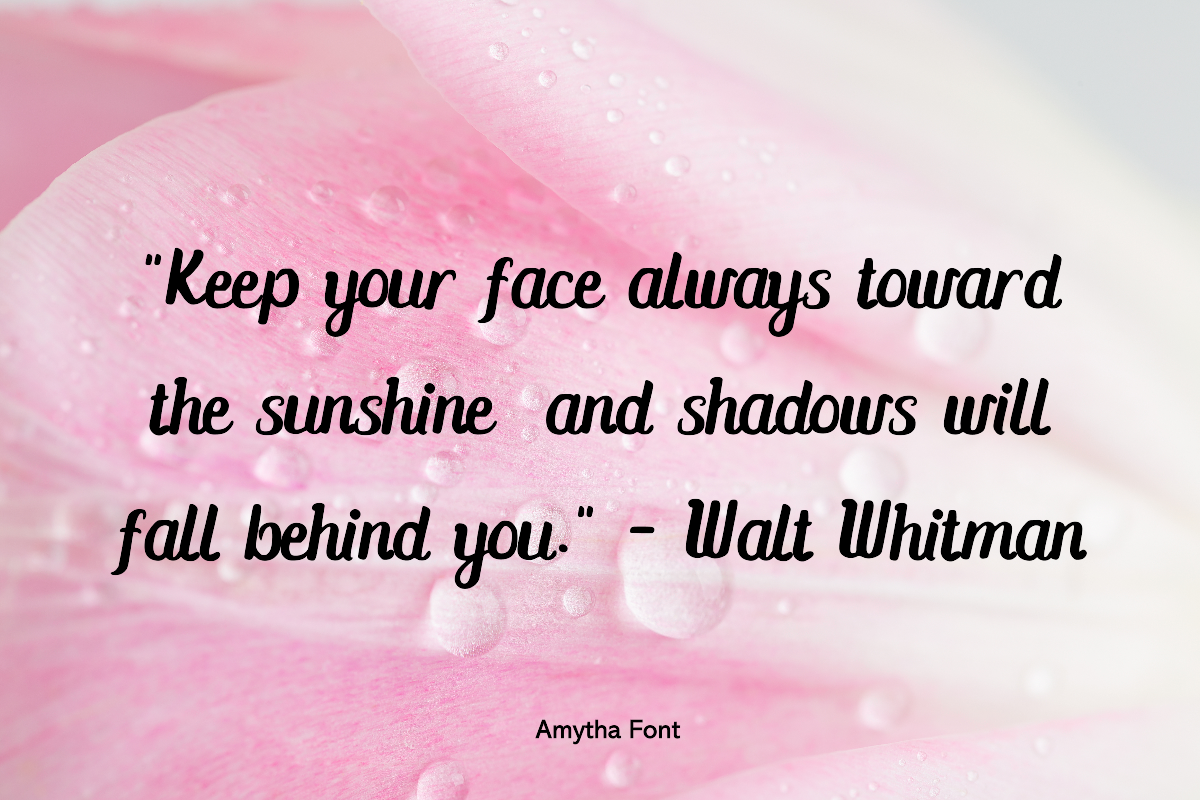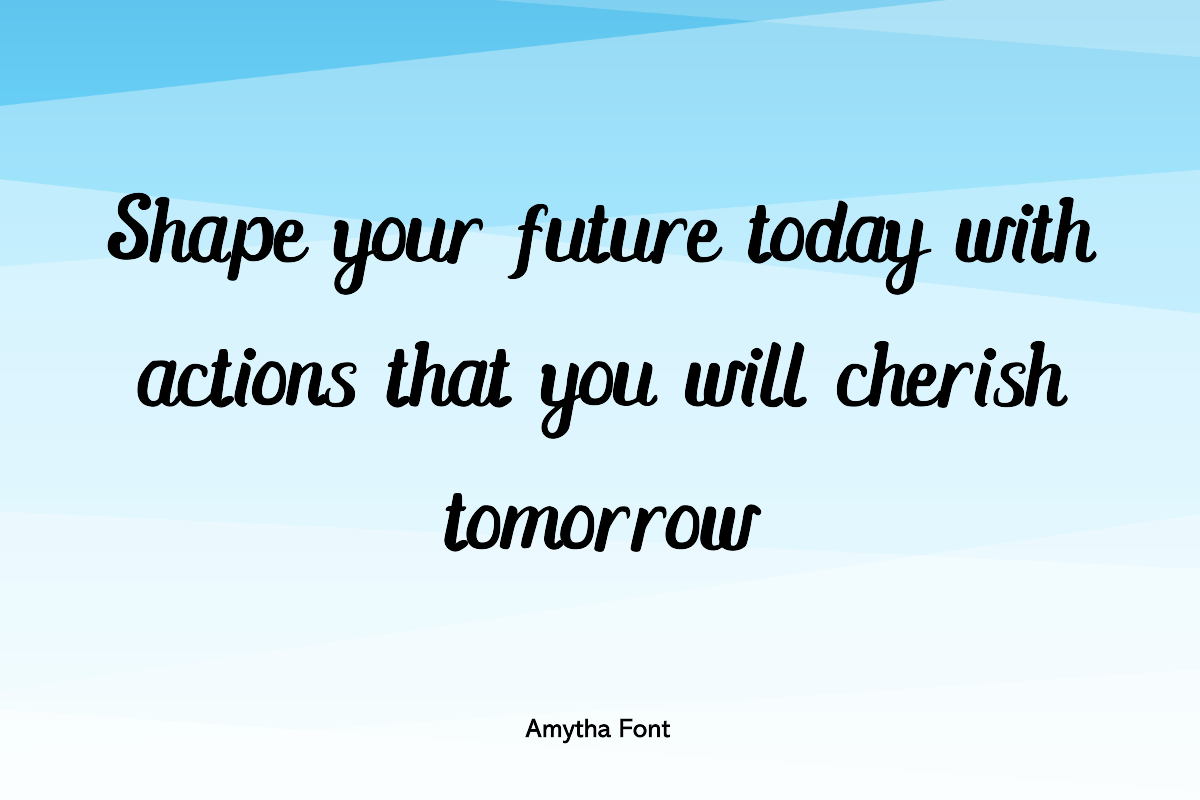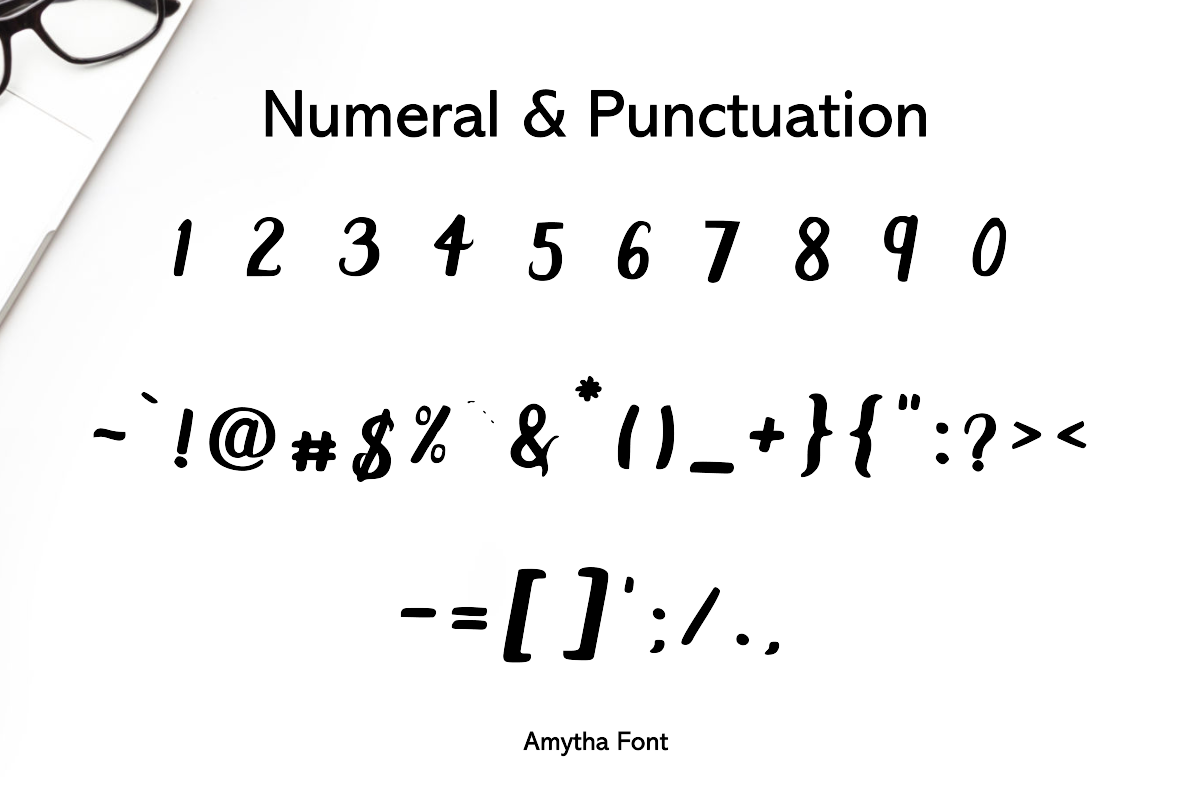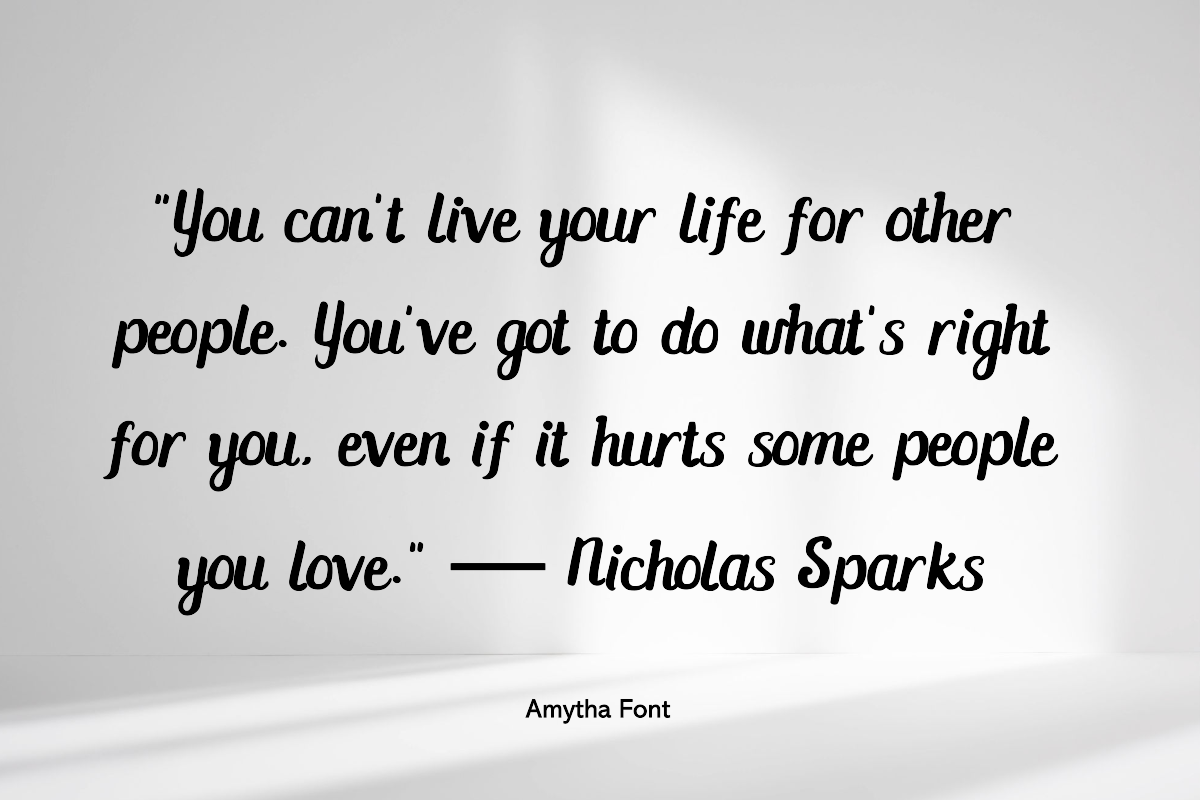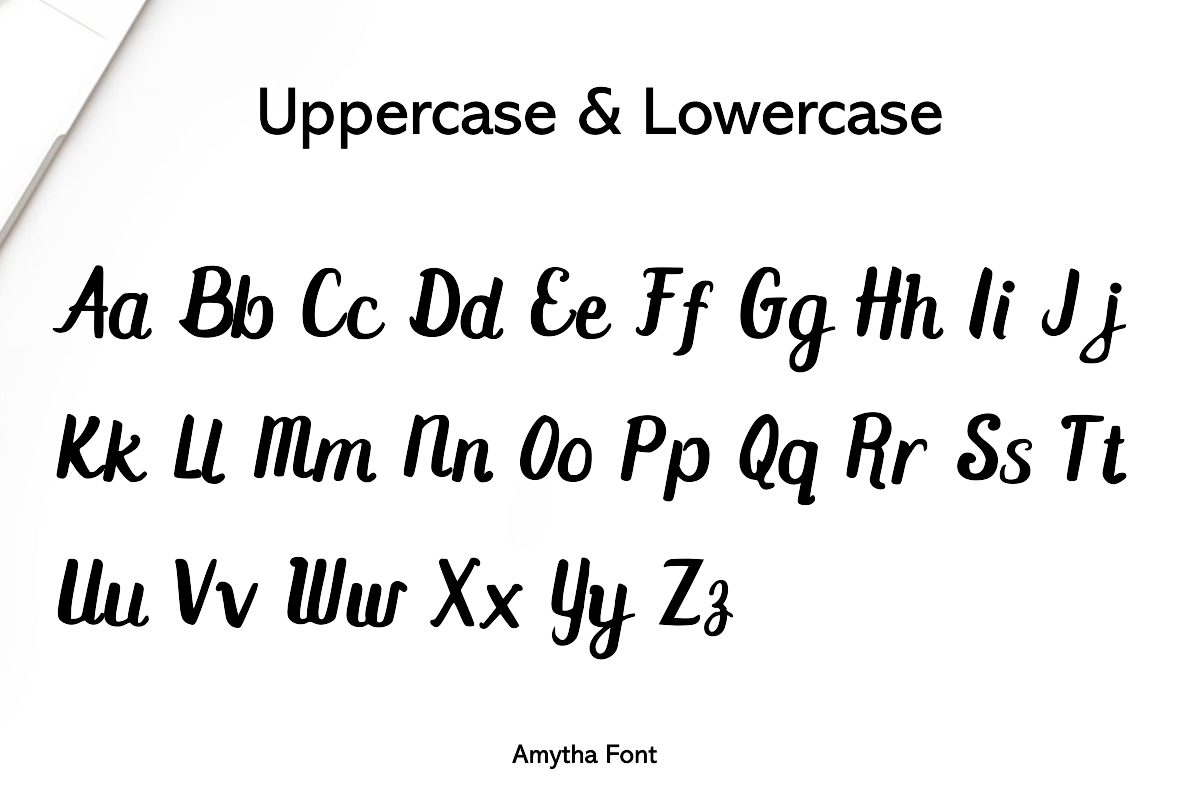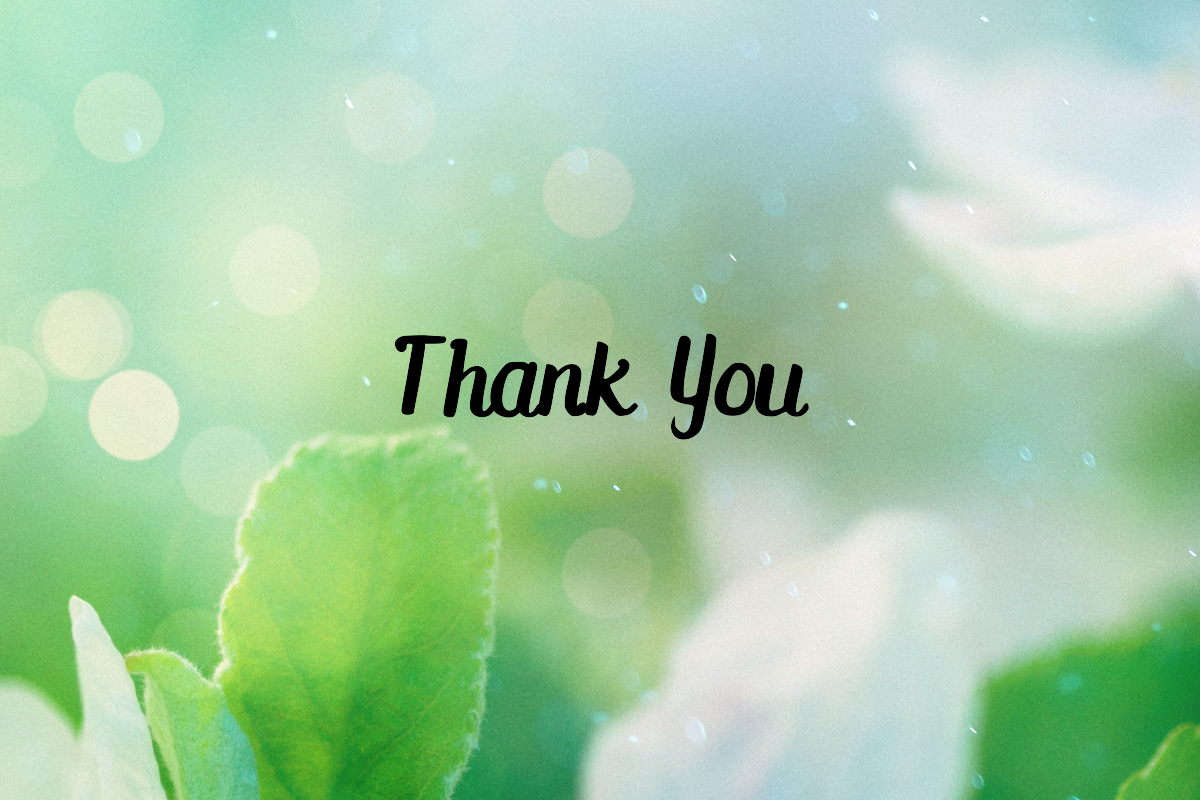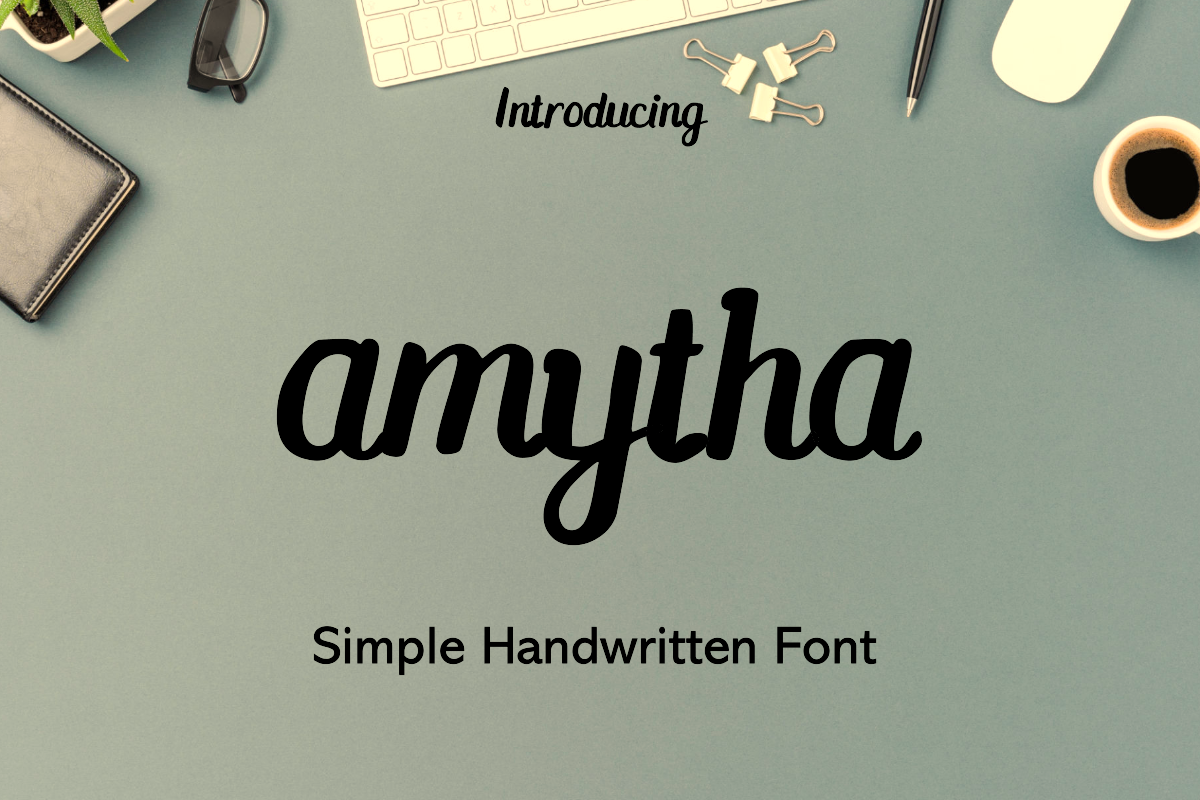
Amytha Modern Handwritten Font
Amytha – The Essence of Simplicity and Elegance
Introducing Amytha, a modern handwritten font that blends the art of simplicity with the grace of elegance. Its clean lines and unadorned style make it a perfect companion for a variety of design projects that require a touch of personal sophistication.
Ideal for:
- Minimalist Branding: Amytha's uncluttered appearance supports a clear, focused brand message.
- Streamlined Design Work: From digital interfaces to print media, Amytha ensures a sleek, contemporary feel.
- Personalized Content: Give your words a signature style that's both modern and inviting.
Amytha is not just a font; it's a reflection of modern design principles, offering a balance between approachability and refined aesthetics.